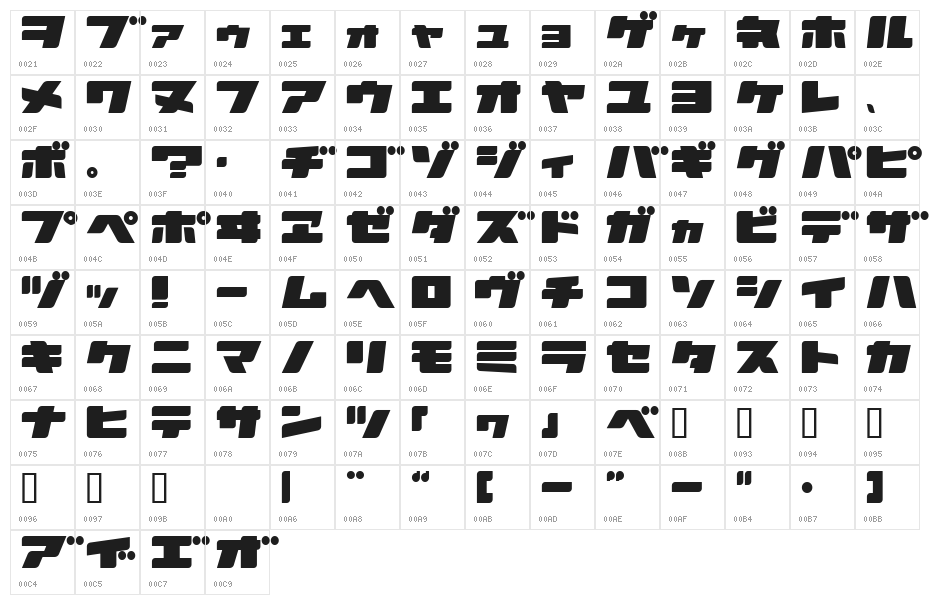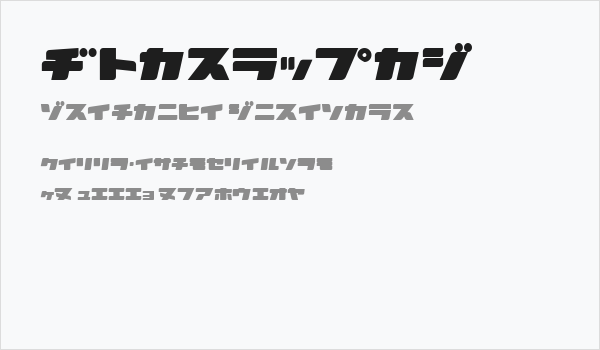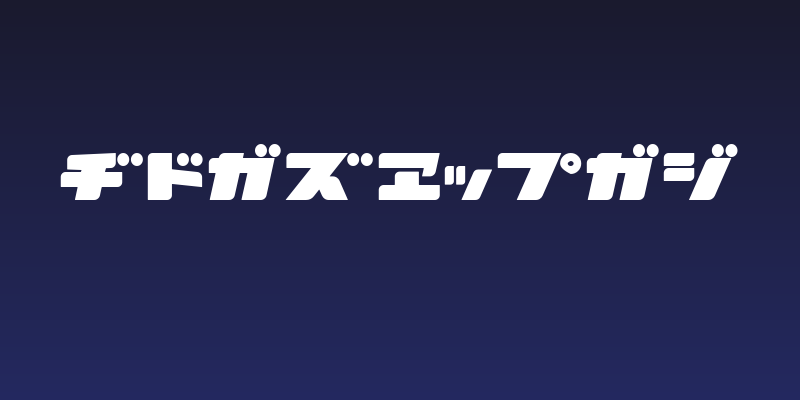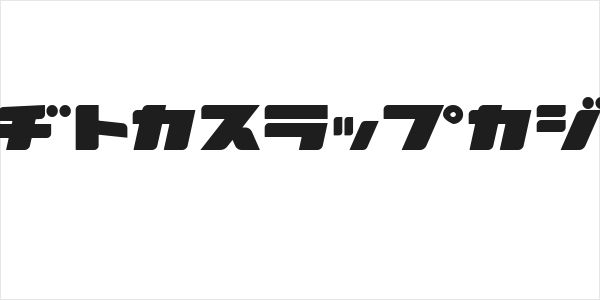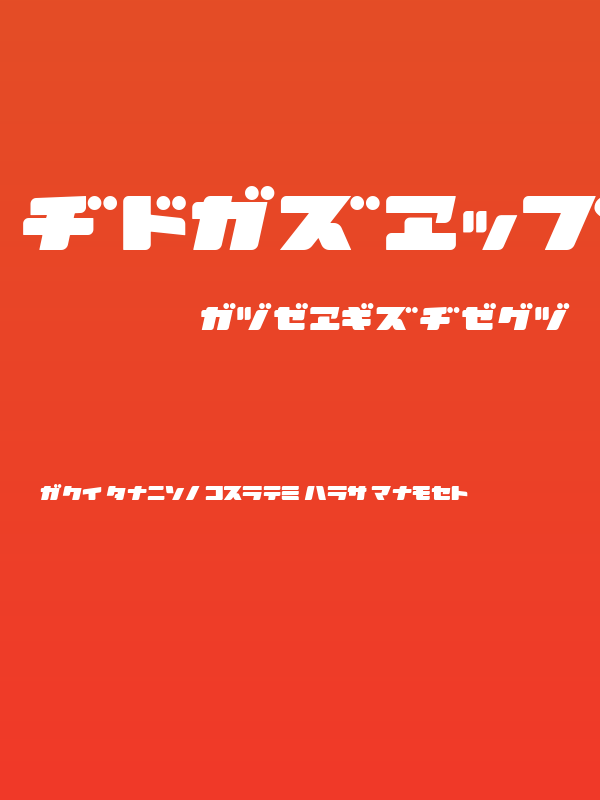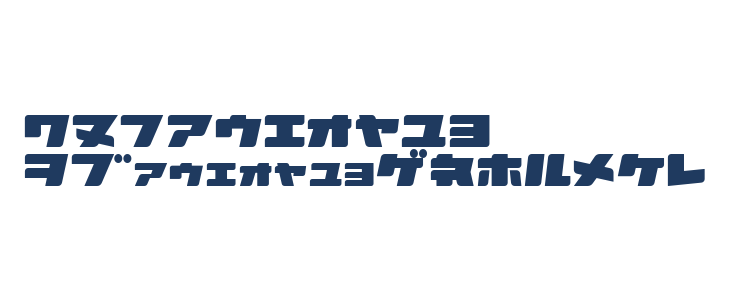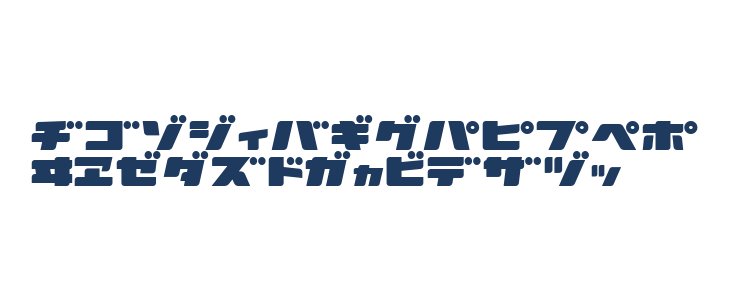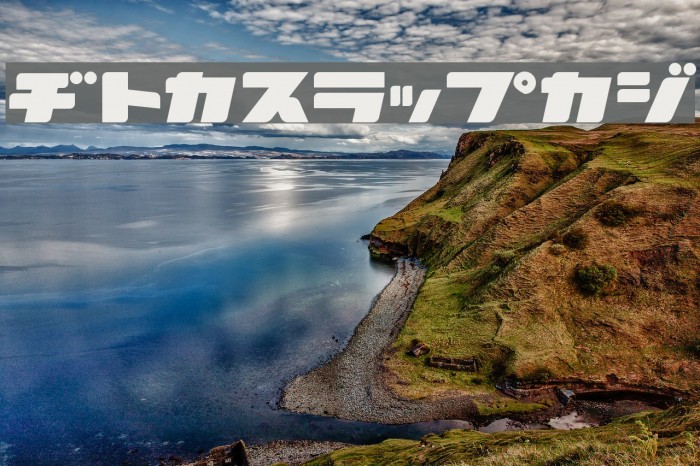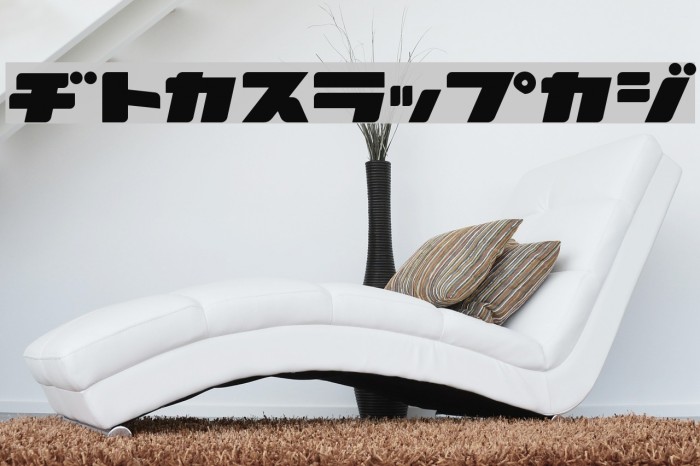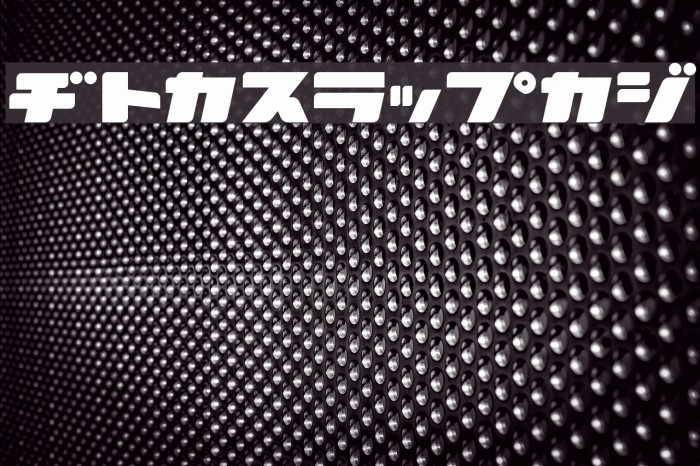
AstroZKtD Font
AstroZKtD Description
This font features bold, geometric characters with a strong, futuristic aesthetic. The letters are uniformly thick, with sharp angles and a blocky appearance that conveys a sense of strength and modernity. The consistent stroke width across all characters gives it a cohesive look, while the angular design elements add a dynamic and energetic feel. The font is highly legible, making it suitable for various display purposes where impact is desired.
| Proposed Projects | Ideal for sci-fi themed posters, video game titles, technology branding, and any project requiring a modern, impactful typeface. |